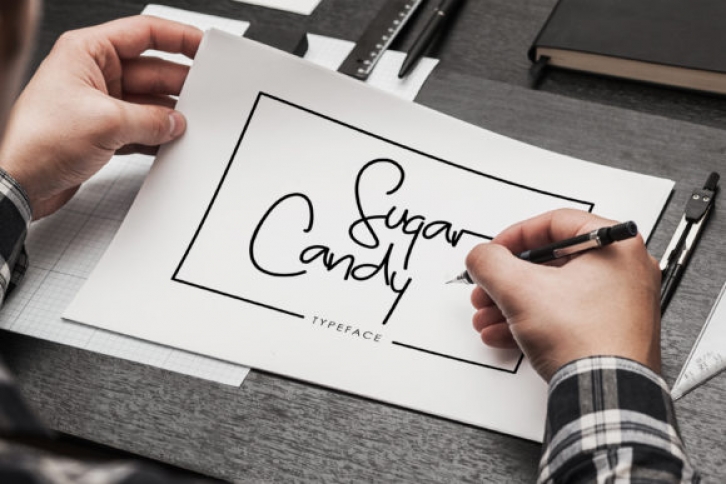
Sugar Candy is a timeless and relaxed handwritten font. It looks stunning on wedding invitations, thank you cards, quotes, greeting cards, logos, business cards and every other design which needs a handwritten touch.